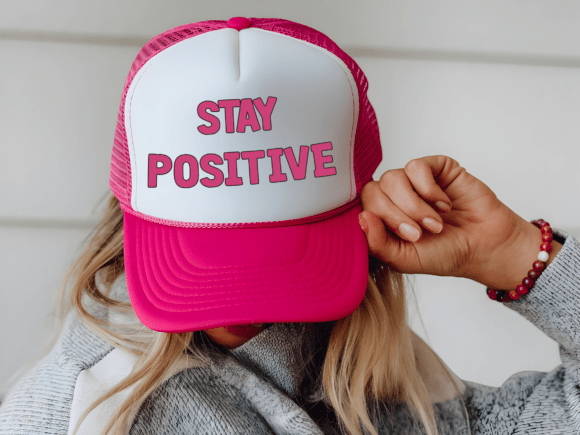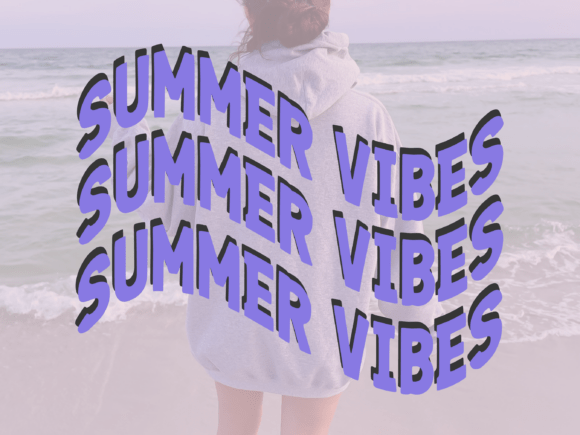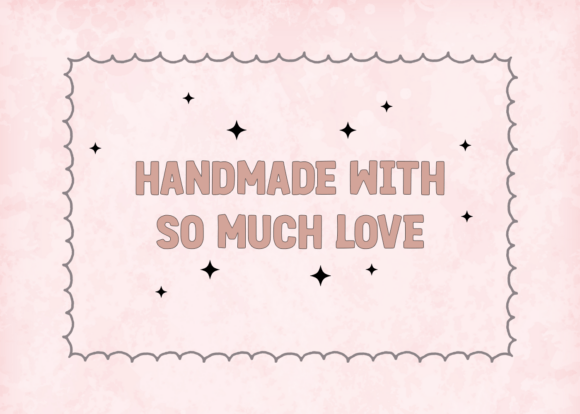
Introduction to Kiss Nova Font
Kiss Nova is a versatile, stylish, and playful display font perfect for a wide spectrum of applications such as greeting cards, headlines, and many more.
Add it to any of your creative projects, and it will give them a romantic and exquisite feel .
Key Features of Kiss Nova Font
Why Choose Kiss Nova Font?
Kiss Nova Font offers exceptional quality and versatility, making it a valuable addition to your design toolkit. Whether you’re creating for personal projects or commercial use, Kiss Nova Font delivers professional results.